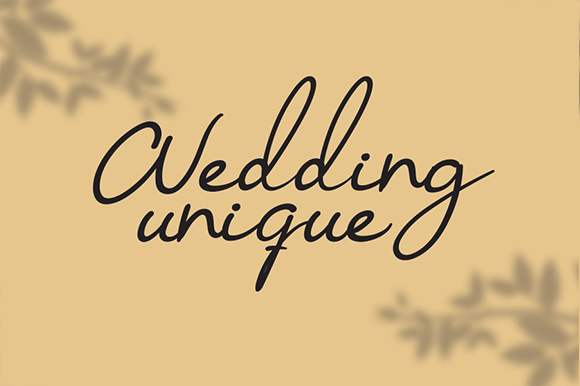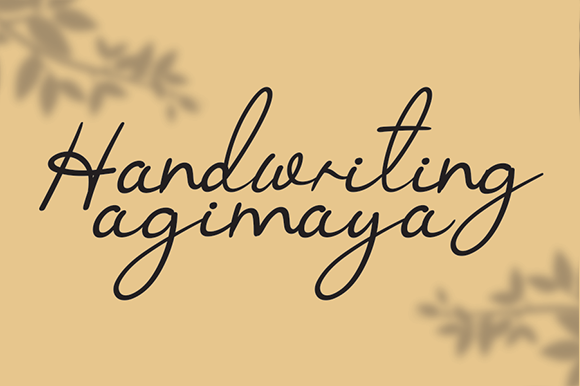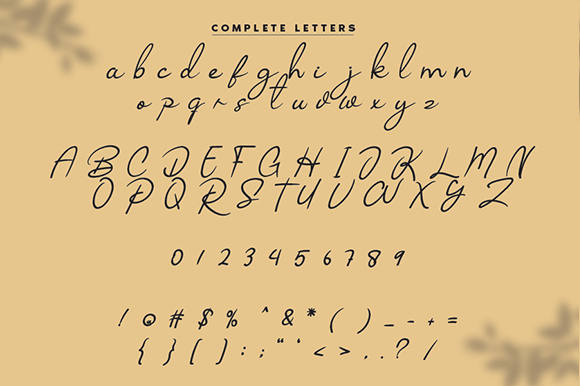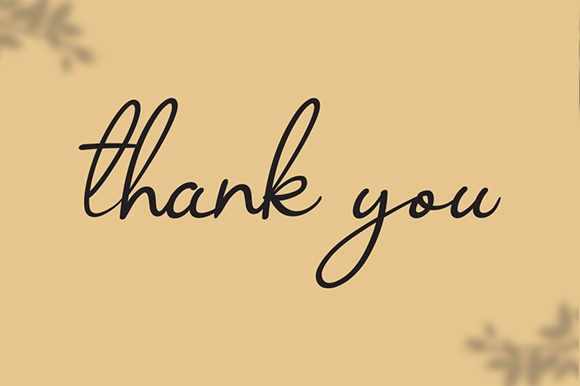
Introduction to Belkago Font
Belkago results out of a stunning pairing of a brush pen and pencil that makes it look incredibly endearing and authentic.
Belkago results out of a stunning pairing of a brush pen and pencil that makes it look incredibly endearing and authentic. Use this gorgeous and unique handwritten font to bring any DIY project to lif
Key Features of Belkago Font